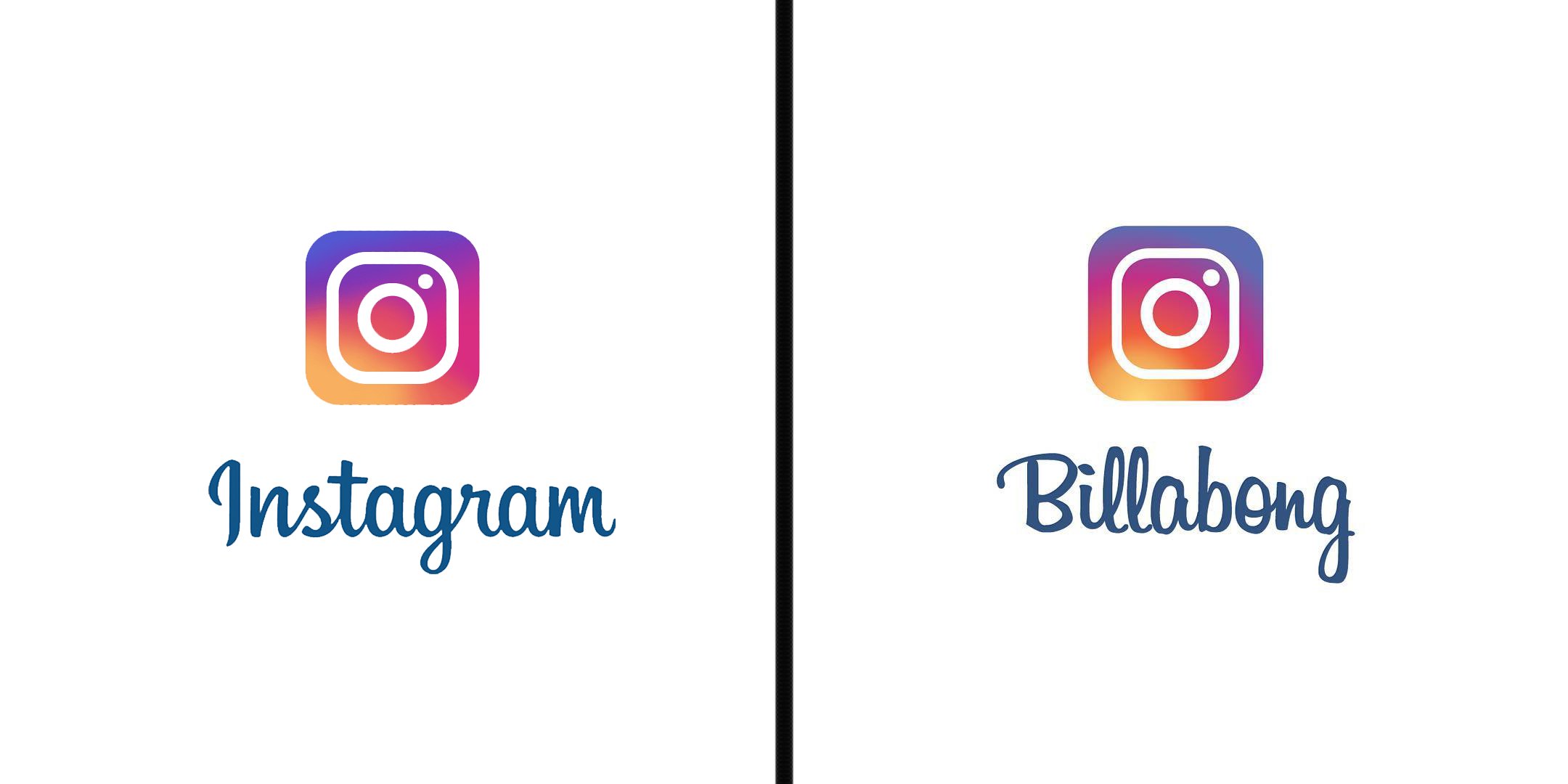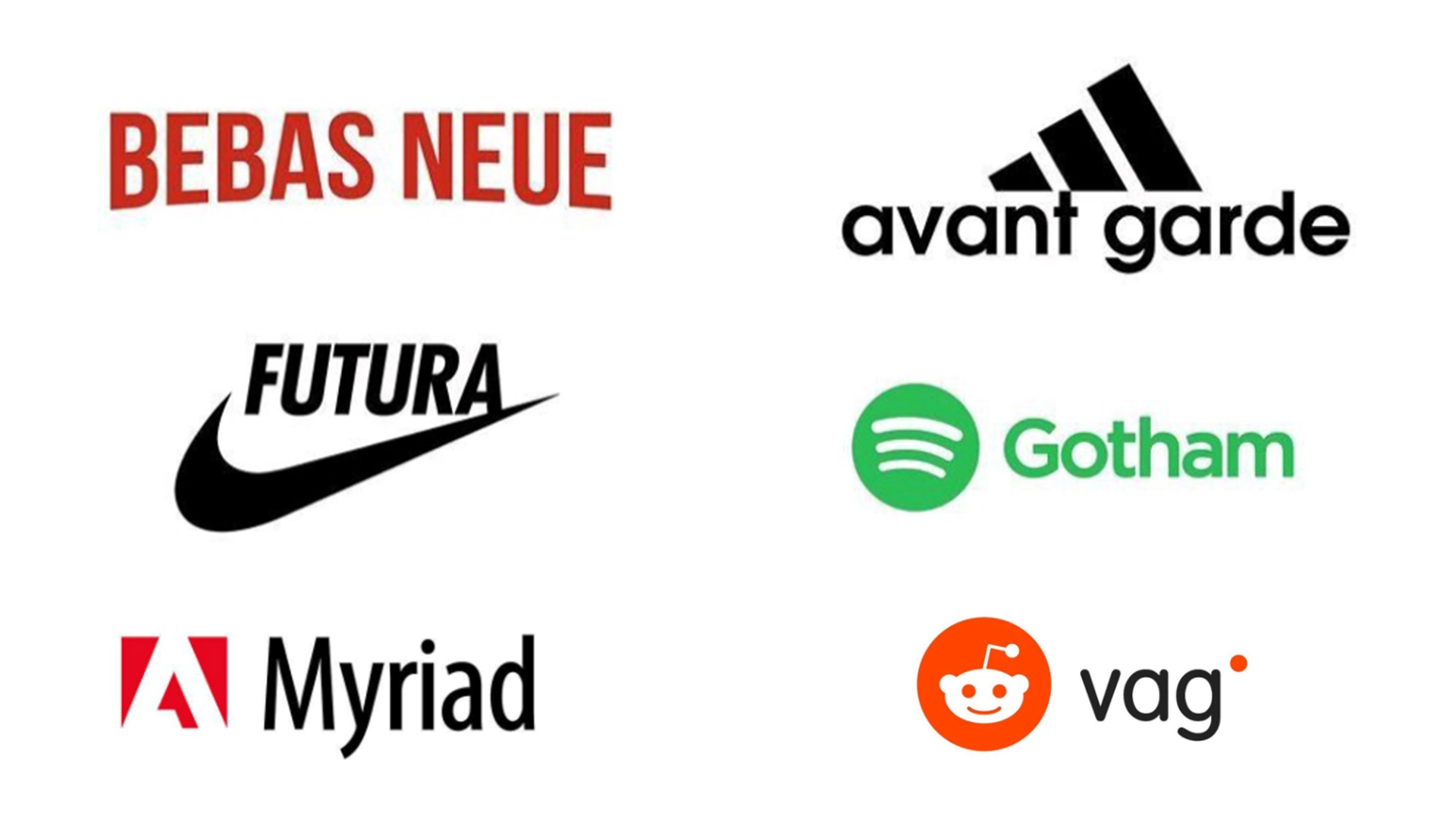
Can you guess the fonts used in these famous logos?
Turns out Spotify and TikTok are typeface twins.
From Comic Sans to Papyrus, we've all rolled our eyes at a logo design which incorporates an overly familiar font. Well, it seems even big brands are happy to use free fonts in their branding – or at least to use them as a jumping-off point.
A viral Twitter thread has revealed the fonts used by various huge companies, from Netflix to Spotify, via Nike, Adobe and many more. Reimagining the typeface name in the style of each respective logo, the images reveal 30 big-name brands apparently using small-cost fonts. But all might not be quite as simple as it seems. (Looking for more typographical inspiration? Check out the best free fonts.
Fonts used by big brands. A thread: Netflix pic.twitter.com/w1jUhPQmXqJanuary 1, 2022
Indeed, it appears a remarkable number of brands have created logo designs based on fonts that are available right there on your phone or laptop. Both Spotify and TikTok seem to have opted for Gotham, and BBC looks like it's using Gill Sans (to be fair, the company recently moved over to its own font). At least Google is using its own font, Product Sans.
Of course, there are tweaks here and there, from Netflix's signature arched text to various weight adjustments. But it seems Twitter users have been blown away by the images, shared by digital marketer Emmanuel Lumumba. "Really neat to see how baseline, sans serif fonts can turn into some of the most recognizable brands on the planet," one user comments, while another adds, "BBC News and Toy Story using the same font is going to end me."
But not every comparison seems quite right. In the example of Instagram (above), there are clear differences between letters such as 'a' and 'g' (but then again, we've all been writing 'g' wrong for years). "Have you ever seen a Twitter thread that feels like it was designed to make you and specifically you upset? Cause this thread and its inaccuracies..." one user complains. Yep, typography can be an emotional subject.